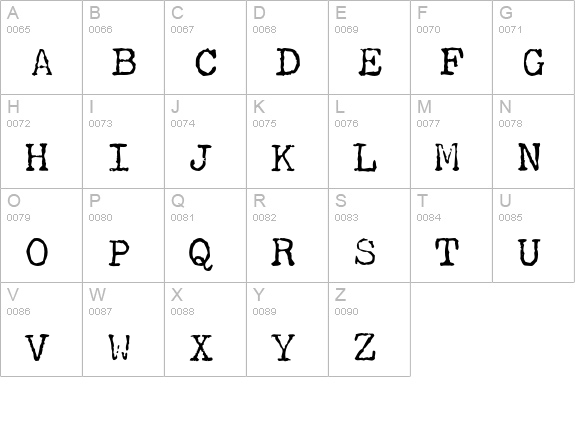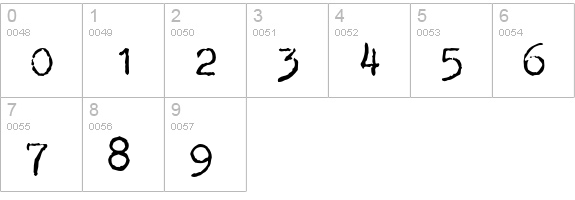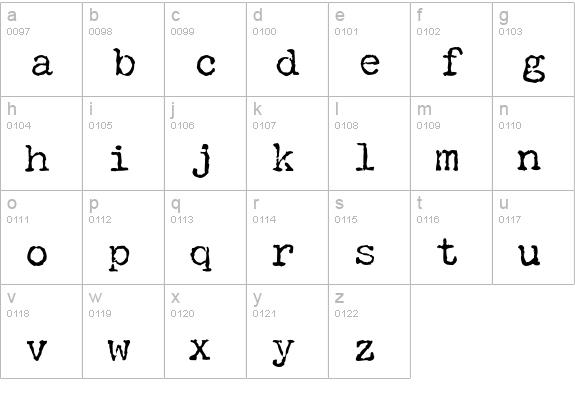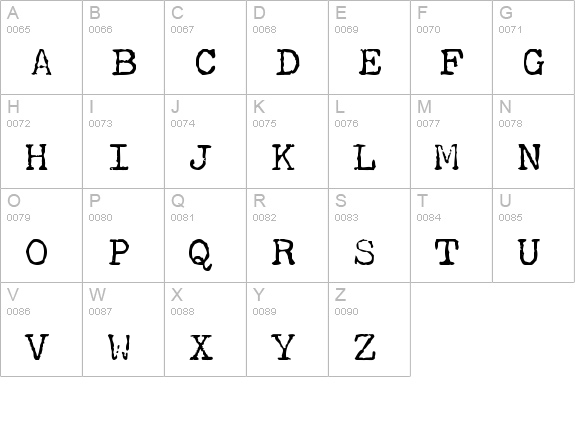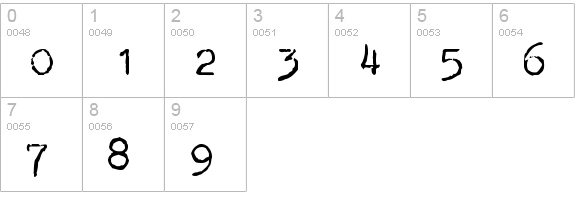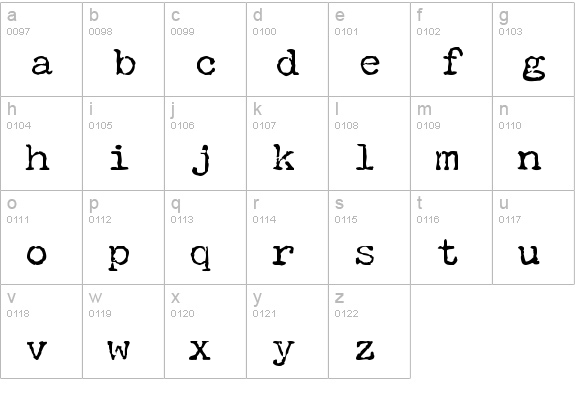
P22Typewriter font is a timeless and classic typeface that embodies the nostalgic charm of vintage typewriters. With its clean and distinct letterforms, this font effortlessly captures the essence of typewritten text, bringing a touch of authenticity to any project. Designed with careful attention to detail, P22Typewriter font seamlessly blends modern design with the rustic aesthetic of typewriters, resulting in a unique and versatile typeface. Whether used for headlines, body text, or even as a decorative element, this font adds a sense of character and personality to any design. One of the most appealing aspects of P22Typewriter font is that it is freely available to download at FontsMarket.com. This means that designers and typewriter enthusiasts alike can easily access this font and incorporate it into their projects without any hassle. The ability to freely obtain this font allows for creative freedom and accessibility, making it a valuable resource for any designer or typewriter aficionado. P22Typewriter font is well-suited for a wide range of applications, from vintage-inspired designs to contemporary projects seeking a touch of retro charm. Its versatility and timeless appeal make it a go-to choice for designers looking to add a touch of nostalgia to their work. With its unique blend of classic design and modern functionality, P22Typewriter font is a must-have for any designer's toolkit. Download it for free at FontsMarket.com and unlock the potential to create stunning typewriter-inspired designs that stand out from the crowd.